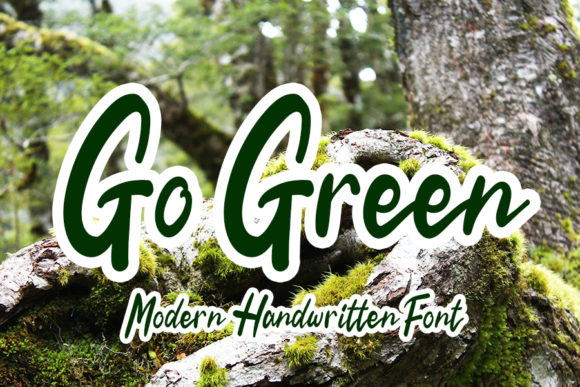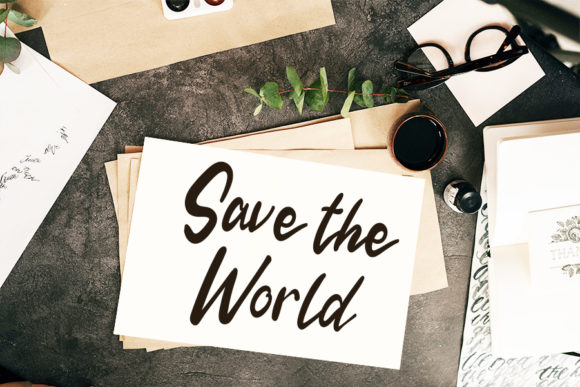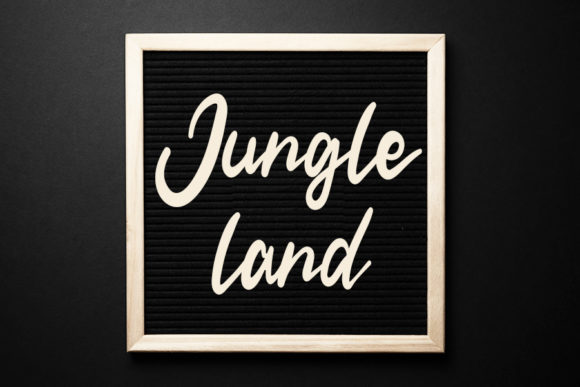
About Go Green Font
Go Green is a stylish and delicate handwritten font. It has a clean and flowing vibe and it will be a hit for any design that you wish to create.